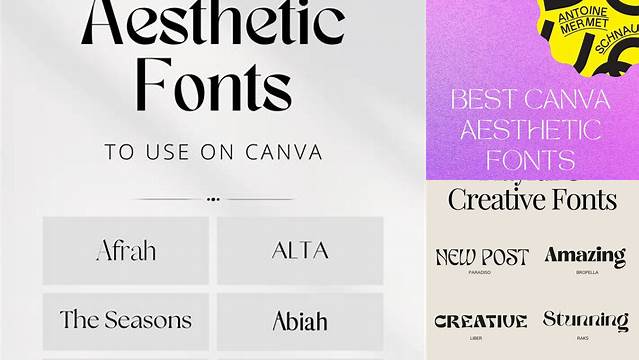
Aesthetic Fonts For Photoshop: Your Ultimate Guide
Hey guys! Ever wondered how to make your designs really pop in Photoshop? It all starts with the right fonts. Aesthetic fonts can transform your work from plain to stunning, and in this guide, we’re diving deep into everything you need to know about using them in Photoshop. Whether you're a seasoned pro or just starting, you'll find some seriously cool tips and tricks here. Let's get started!
1. What Makes a Font 'Aesthetic' in Photoshop?
Okay, first things first, what even is an aesthetic font? It’s not just about looking pretty; it's about conveying a mood, a feeling, or a specific style. In Photoshop, an aesthetic font is one that complements your overall design, adds visual interest, and enhances the message you’re trying to send. Think about it – a sleek, modern sans-serif can give a totally different vibe than a whimsical, hand-lettered script. The term aesthetic font encompasses a vast range of styles, each with its unique charm and purpose. From elegant serifs that evoke a sense of timeless sophistication to quirky display fonts that scream personality, the possibilities are endless. The key is to choose a font that not only looks good but also aligns with the overall aesthetic of your project. Consider the target audience, the message you want to convey, and the emotional impact you want to create. Experiment with different font combinations, sizes, and weights to see what works best. Don't be afraid to break the rules and try something unconventional! After all, creativity thrives on experimentation. Using aesthetic fonts effectively in Photoshop is an art form in itself. It requires a keen eye for detail, a deep understanding of typography principles, and a willingness to push boundaries. But with the right guidance and a little practice, you can master the art of typography and elevate your designs to new heights. So, let's embark on this exciting journey together and unlock the full potential of aesthetic fonts in your Photoshop creations!
2. Popular Types of Aesthetic Fonts for Photoshop
So, what kinds of aesthetic fonts are out there? Glad you asked! There’s a whole universe of options, each with its own unique flavor. We’re talking about everything from elegant serifs and sleek sans-serifs to playful scripts and bold display fonts. Understanding these categories is crucial for picking the perfect aesthetic font for your project in Photoshop. Serifs, with their classic little “feet,” often bring a touch of sophistication and formality. Think Times New Roman or Garamond – perfect for projects that need a timeless, professional vibe. Sans-serifs, on the other hand, are the sleek and modern cousins. Fonts like Helvetica and Arial offer clean lines and a contemporary feel, ideal for minimalist designs or projects targeting a younger audience. Script fonts are where things get fun and fancy! These fonts mimic handwriting and can add a personal, artistic touch to your work. Just be careful not to overdo it; readability is key! Then there are display fonts – the bold, attention-grabbing options designed for headlines and titles. These can range from chunky, industrial styles to whimsical, hand-drawn designs. Think about the overall aesthetic you’re going for. Are you creating a sleek, modern website? A vintage-inspired poster? A fun, playful invitation? The aesthetic font you choose should reflect that vibe. Don't be afraid to mix and match different font styles, but do it strategically. A good rule of thumb is to pair a more decorative font with a simpler one to ensure balance and readability. Using a bold display font for your headline and a clean sans-serif for your body text can create a visually appealing contrast. Remember, the goal is to create a cohesive and harmonious design. Experiment with different aesthetic font pairings until you find the perfect combination for your project. And most importantly, have fun with it! Typography is a powerful tool for expressing your creativity and personality. So, go ahead and explore the vast world of aesthetic fonts and discover the perfect voices for your designs.
5. Pairing Aesthetic Fonts in Photoshop
Font pairing, guys, is key to a killer design. It’s like finding the perfect harmony in music – you want fonts that complement each other, not clash. When you're working with aesthetic fonts in Photoshop, knowing how to pair them effectively can take your designs from good to amazing. A common approach is to pair a decorative or display font with a simpler, more readable font. Think of it as the headline vs. the body text. Your headline font can be bold and attention-grabbing, while your body text font should be clean and easy on the eyes. This creates a visual hierarchy and helps guide the viewer's eye through your design. For example, you might pair a bold, handwritten script font with a clean sans-serif like Montserrat or Open Sans. Or, you could use a classic serif like Garamond for your body text and a modern sans-serif like Lato for your headings. The contrast between the two styles can create a sophisticated and balanced look. Another trick is to use different weights and styles within the same font family. Many font families come with a variety of weights, from thin to bold, as well as italic variations. Using these variations can add visual interest without introducing a completely different font style. For instance, you could use a bold weight for your headings and a regular weight for your body text, all within the same font family. This creates a cohesive and professional look. When choosing aesthetic font pairings, consider the overall tone and style of your design. Are you going for a modern, minimalist look? Or a vintage, retro vibe? The fonts you choose should reflect that style. If you're designing for a specific brand, consider their brand guidelines and font preferences. Using fonts that align with the brand's identity can help maintain consistency and strengthen brand recognition. Don't be afraid to experiment and try out different pairings. There are no hard and fast rules when it comes to font pairing, so have fun and see what works best for your project. You can also use online tools and resources to help you find font pairings. Websites like FontPair and Typewolf offer curated font combinations that you can use as inspiration. Ultimately, the best way to master aesthetic font pairing is to practice and develop your eye for typography. Pay attention to the fonts you see in magazines, websites, and other designs, and try to analyze why they work well together. With time and experience, you'll develop a knack for creating beautiful and effective font pairings.
6. Best Aesthetic Font Styles for Different Projects
So, let’s get specific, guys. What aesthetic font styles work best for different kinds of projects? Choosing the right font isn't just about personal preference; it's about matching the font to the message and the medium. Let’s break it down. For websites and digital interfaces, readability is king. You want fonts that are clean, clear, and easy to read on screens. Sans-serif fonts like Open Sans, Roboto, and Montserrat are popular choices for body text because they offer excellent legibility even at smaller sizes. For headings and titles, you can get a little more creative, but still keep readability in mind. A slightly bolder sans-serif or even a subtle serif can work well. Think about the overall tone of your website. If it's a professional business site, you might want to stick with more classic and conservative fonts. If it's a creative portfolio or blog, you can afford to be a bit more playful with your font choices. For print materials like brochures, posters, and flyers, you have a bit more flexibility. Serifs can work beautifully in print, as they often have a more elegant and polished look. Fonts like Garamond, Times New Roman, and Playfair Display are classic choices for print projects. If you're designing a poster or flyer, you can use a bolder display font for your headlines to grab attention. But make sure your body text is still readable and not overshadowed by the headline font. For social media graphics, your fonts need to be eye-catching and legible, especially on smaller screens. Bold sans-serifs and scripts can work well for social media posts, but always prioritize readability. Consider using contrasting colors to make your text stand out against your background image. If you're creating a quote graphic, a handwritten or script font can add a personal touch. But avoid using overly decorative fonts that are difficult to read. When choosing aesthetic fonts for branding projects, consistency is crucial. Your logo, website, and marketing materials should all use the same fonts to create a cohesive brand identity. Think about the personality of your brand and choose fonts that reflect that. A luxury brand might use elegant serifs, while a tech startup might opt for a modern sans-serif. Remember, the best aesthetic font for a project is the one that effectively communicates your message and enhances your overall design. Consider your audience, the medium, and the tone you want to convey, and choose fonts that align with those factors. With a little practice, you'll develop a knack for selecting the perfect fonts for any project.
7. Modern Aesthetic Font Trends in Photoshop
Okay, let’s keep it fresh, guys! What are the hottest aesthetic font trends in Photoshop right now? Typography trends are always evolving, and staying on top of the latest styles can give your designs a modern and relevant edge. One major trend is the use of bold, geometric sans-serifs. These fonts have a clean, minimalist look that's perfect for modern websites, branding, and social media graphics. Think fonts like Montserrat, Bebas Neue, and Futura. They're strong, impactful, and easy to read. Another trend is the resurgence of vintage and retro fonts. Designers are embracing fonts with a nostalgic feel, drawing inspiration from the mid-century modern era and beyond. Think fonts with rounded serifs, script styles, and quirky letterforms. These fonts can add character and personality to your designs. Hand-drawn and script fonts are still going strong, but they're evolving. We're seeing more refined and elegant script styles, as well as hand-drawn fonts with a more polished and professional look. These fonts are great for adding a personal touch to your designs, but they should be used sparingly to maintain readability. Variable fonts are also gaining popularity. These fonts allow you to customize various aspects of the font, such as weight, width, and slant, giving you more control over your typography. This can be especially useful for creating unique and dynamic designs. Another trend is the use of contrasting font styles. Designers are pairing bold, attention-grabbing fonts with simpler, more understated fonts to create visual interest and hierarchy. This can be a great way to make your designs stand out. When incorporating these aesthetic font trends into your designs, it's important to consider your audience and the overall message you want to convey. Just because a font is trendy doesn't mean it's the right choice for every project. Choose fonts that align with your brand identity and the tone of your design. Don't be afraid to experiment with different styles and combinations, but always prioritize readability and clarity. The goal is to use typography to enhance your design, not distract from it. Staying informed about the latest font trends can help you create designs that are fresh, modern, and visually appealing. So, keep an eye on what's popular, but always trust your own creative instincts and choose fonts that feel right for your project.
8. Using Aesthetic Fonts for Logos in Photoshop
Let's talk logos, guys! A logo is the face of your brand, and the aesthetic font you choose plays a huge role in how your brand is perceived. Your logo font needs to be memorable, legible, and reflective of your brand's personality. When choosing aesthetic fonts for logos in Photoshop, the first thing to consider is your brand's identity. What are your brand values? What is your target audience? What kind of message do you want to convey? A luxury brand might opt for an elegant serif font like Trajan Pro or Garamond, while a tech startup might choose a modern sans-serif like Helvetica or Montserrat. A playful brand might use a handwritten or script font, while a more traditional brand might stick with a classic serif. Legibility is crucial for logo fonts. Your logo needs to be readable at various sizes, from business cards to billboards. Avoid overly decorative fonts that are difficult to read, especially at smaller sizes. Sans-serif fonts are generally more legible at small sizes than serif fonts, but there are exceptions. If you're using a serif font, make sure it's clean and well-designed. Versatility is another important factor. Your logo font should work well in a variety of contexts, from your website to your social media profiles to your printed materials. Choose a font that is versatile enough to adapt to different applications. Consider using a font family that includes different weights and styles. This will give you more flexibility when designing your logo and branding materials. For example, you could use a bold weight for your logo and a regular weight for your tagline. Simplicity is key in logo design. A simple, clean logo is often more memorable and effective than a complex one. Avoid using too many fonts or decorative elements in your logo. Stick to one or two fonts at most, and make sure they complement each other. Your logo font should be unique and distinctive. Avoid using generic fonts that are overused. Look for fonts that have a unique character and personality. You can also customize your font to make it even more unique. When designing your logo in Photoshop, experiment with different font styles, sizes, and colors. Try different font pairings and see what works best for your brand. Get feedback from others and refine your logo until it perfectly represents your brand. Remember, your logo is one of the most important elements of your brand identity, so choose your font wisely. A well-designed logo with the right aesthetic font can help you build brand recognition and connect with your target audience.
9. Aesthetic Font Sizes and Spacing in Photoshop
Font size and spacing, guys, are the unsung heroes of typography. They can make or break the readability and overall aesthetic of your design. When working with aesthetic fonts in Photoshop, paying attention to these details is crucial. Let's start with font size. The ideal font size depends on a number of factors, including the font style, the medium (print vs. web), and the viewing distance. For body text, a general rule of thumb is to use a font size between 14 and 18 points for print and 16 to 20 pixels for web. For headings, you can use larger font sizes to create a visual hierarchy. The size difference between your headings and body text should be noticeable, but not jarring. Experiment with different font sizes and see what looks best for your design. Consider the overall layout and the amount of text you have. If you have a lot of text, you might want to use a slightly smaller font size to fit everything in. If you have a limited amount of text, you can use a larger font size to make it more impactful. Line height, also known as leading, is the vertical space between lines of text. The ideal line height depends on the font size and the length of your lines. A general guideline is to set your line height to 1.5 times your font size. For example, if you're using a 12-point font, your line height should be around 18 points. Adjust the line height as needed to improve readability. If your lines are too close together, the text will look cramped and difficult to read. If your lines are too far apart, the text will look disconnected. Letter spacing, also known as tracking, is the horizontal space between letters. Adjusting the letter spacing can improve the overall appearance of your text. In some cases, you may want to slightly increase the letter spacing to give your text more breathing room. In other cases, you may want to slightly decrease the letter spacing to make your text more compact. Word spacing is the horizontal space between words. Adjusting the word spacing can also improve the readability of your text. Too much word spacing can make your text look disjointed, while too little word spacing can make it difficult to distinguish between words. Kerning is the adjustment of the space between individual letters. Some letter combinations can look awkward if the default spacing is used. Kerning allows you to fine-tune the spacing between letters to create a more balanced and harmonious look. When working with aesthetic fonts in Photoshop, take the time to experiment with font sizes, spacing, and kerning. These details can make a big difference in the overall quality and readability of your design. Pay attention to how your text looks and feels, and adjust the settings as needed to achieve the desired effect.
10. Aesthetic Font Color and Effects in Photoshop
Color and effects, guys, are the secret sauce that can take your aesthetic font game to the next level in Photoshop! It’s not just about picking a pretty font; it’s about making that font shine. Let’s dive into how you can use color and effects to create truly stunning typography. First up, color. The color of your font can have a huge impact on the overall look and feel of your design. Consider the mood you want to create and choose colors that align with that mood. For example, warm colors like red and orange can evoke feelings of energy and excitement, while cool colors like blue and green can create a sense of calm and tranquility. Think about the contrast between your font color and your background color. High contrast is essential for readability. If your background is dark, use a light font color, and vice versa. If your background is busy or textured, you may need to use a darker or bolder font color to make your text stand out. Use color to create visual hierarchy. You can use different colors for your headings and body text to guide the viewer's eye through your design. A brighter or bolder color can be used for headings to draw attention, while a more subdued color can be used for body text to ensure readability. Gradient colors can add depth and dimension to your text. A subtle gradient can create a smooth and polished look, while a more dramatic gradient can add a sense of energy and excitement. Experiment with different gradient styles and color combinations to see what works best for your design. Now, let's talk effects. Photoshop offers a wide range of effects that you can apply to your text, including drop shadows, strokes, inner shadows, and bevels. These effects can add depth, texture, and visual interest to your typography. Drop shadows can create the illusion that your text is floating above the background. Use drop shadows sparingly and subtly to avoid making your text look cluttered or artificial. Strokes can add definition and emphasis to your text. A thin stroke in a contrasting color can make your text stand out against the background. Inner shadows can create a subtle three-dimensional effect. This effect can add depth and dimension to your text without being too overpowering. Bevels can create a raised or embossed effect. This effect can add a touch of elegance and sophistication to your typography. When using effects, less is often more. Overusing effects can make your text look cluttered and unprofessional. Experiment with different effects and settings, but always prioritize readability and clarity. The goal is to enhance your aesthetic font, not distract from it. By using color and effects thoughtfully, you can create typography that is both visually stunning and highly effective.
11. Aesthetic Font Kerning and Tracking in Photoshop
Kerning and tracking, guys, are like the secret weapons of professional typography. They’re the tiny tweaks that can make a huge difference in how polished and professional your aesthetic fonts look in Photoshop. Seriously, mastering these skills is a total game-changer. Let’s break down what they are and how to use them. Kerning is the adjustment of the space between individual letters. Think of it as fine-tuning the fit between each letter pair. Some letter combinations, like “AV” or “Wo,” can look awkward if the default spacing is used. Kerning allows you to manually adjust the space between these letters to create a more balanced and harmonious look. In Photoshop, you can adjust kerning using the Character panel. Select the text layer you want to adjust, open the Character panel (Window > Character), and use the kerning setting (the “VA” icon with arrows) to increase or decrease the space between the selected letters. Tracking, on the other hand, is the uniform adjustment of the space between all letters in a word or phrase. It’s like a global spacing control. Tracking is useful for adjusting the overall density of your text. If your text looks too tight or too loose, adjusting the tracking can help improve its readability and visual appeal. You can adjust tracking in the Character panel as well, using the tracking setting (the “VA” icon with a single arrow). So, when should you use kerning and when should you use tracking? Kerning is best used for fine-tuning specific letter pairs that look awkward. It’s a manual process that requires a keen eye for detail. Tracking is best used for adjusting the overall spacing of your text. It’s a quick way to make global adjustments to the density of your text. A good rule of thumb is to kern first and track later. Start by kerning any letter pairs that need adjustment, and then use tracking to fine-tune the overall spacing of your text. When kerning, pay attention to the negative space between letters. The goal is to create an even distribution of space between all letters. Some letter combinations may require more kerning than others. When tracking, make small adjustments and check the overall appearance of your text. Too much tracking can make your text look sparse and disconnected, while too little tracking can make it look cramped and difficult to read. Mastering kerning and tracking takes practice, but it's a skill that will pay off in spades. By paying attention to these details, you can create typography that is both visually stunning and highly readable. So, take the time to learn these skills and elevate your aesthetic font game to the next level.
12. Combining Aesthetic Fonts with Images in Photoshop
Images and aesthetic fonts, guys, are like peanut butter and jelly – they just go together! But like any great pairing, it’s all about balance. You want your fonts and images to complement each other, not compete. Let’s talk about how to make this magic happen in Photoshop. First, consider the mood and style of your image. Is it a bright and cheerful photo? A moody and atmospheric one? The font you choose should reflect that same vibe. A playful image might pair well with a handwritten or script font, while a more sophisticated image might call for a classic serif or a clean sans-serif. Think about the image’s focal point. You don’t want your text to distract from the main subject of the image. Place your text strategically so that it enhances the image, not overshadows it. Use negative space to your advantage. Placing your text in an area of the image that is relatively empty can help it stand out and improve readability. Consider the color palette of your image. Choose font colors that complement the colors in the image. You can use the Eyedropper tool in Photoshop to sample colors from the image and use them for your text. This can create a cohesive and harmonious look. Use blending modes to integrate your text with the image. Blending modes like Multiply, Overlay, and Screen can create interesting effects and help your text blend seamlessly with the image. Experiment with different blending modes to see what works best for your design. Use layer masks to selectively reveal or hide parts of your text. This can be useful for creating effects like text that appears to be behind an object in the image. Crop your image to create a stronger composition. Cropping can help you emphasize the focal point of your image and create a more visually appealing layout for your text. Use hierarchy to guide the viewer’s eye. Use different font sizes and styles to create a visual hierarchy and draw attention to the most important elements of your design. Don’t be afraid to experiment and break the rules. There are no hard and fast rules when it comes to combining fonts and images. The most important thing is to create a design that is visually appealing and effectively communicates your message. When working with aesthetic fonts and images in Photoshop, pay attention to the details and take the time to experiment with different techniques. With a little practice, you can create stunning designs that seamlessly blend typography and imagery.
13. Creating Text Effects with Aesthetic Fonts in Photoshop
Text effects, guys, are the ultimate way to spice up your aesthetic fonts in Photoshop! They can add depth, dimension, and a whole lot of personality to your typography. Let’s explore some cool text effects you can create and how to use them effectively. One of the most popular text effects is the drop shadow. A drop shadow can create the illusion that your text is floating above the background, adding depth and dimension to your design. In Photoshop, you can add a drop shadow by going to Layer > Layer Style > Drop Shadow. Experiment with different settings like the shadow’s distance, spread, and size to achieve the desired effect. Another classic text effect is the stroke. A stroke adds an outline around your text, making it stand out from the background. You can add a stroke in Photoshop by going to Layer > Layer Style > Stroke. Choose a stroke color that contrasts with your text and background colors for maximum impact. Inner shadows can create a subtle three-dimensional effect, making your text look like it’s recessed into the background. You can add an inner shadow by going to Layer > Layer Style > Inner Shadow. Bevel and emboss effects can create a raised or engraved look, adding a touch of elegance and sophistication to your typography. You can add a bevel and emboss effect by going to Layer > Layer Style > Bevel & Emboss. Gradient overlays can add depth and dimension to your text by filling it with a gradient color. You can add a gradient overlay by going to Layer > Layer Style > Gradient Overlay. Experiment with different gradient styles and color combinations to create unique effects. Pattern overlays can add texture and visual interest to your text by filling it with a pattern. You can add a pattern overlay by going to Layer > Layer Style > Pattern Overlay. Photoshop comes with a variety of patterns, or you can create your own. Outer glows can add a soft, luminous effect around your text, making it stand out from the background. You can add an outer glow by going to Layer > Layer Style > Outer Glow. When creating text effects, it’s important to use them sparingly and strategically. Overusing effects can make your text look cluttered and unprofessional. Choose effects that enhance your aesthetic font and support your overall design concept. Experiment with different effects and settings, but always prioritize readability and clarity. The goal is to create typography that is both visually appealing and easy to read. Text effects can be a powerful tool for adding visual interest and personality to your designs. By mastering these techniques, you can create stunning typography that truly stands out.
14. Aesthetic Fonts for Social Media Graphics in Photoshop
Social media graphics, guys, are all about grabbing attention in a super crowded space. That means your aesthetic fonts need to be on point! Choosing the right font can make or break your social media posts, so let’s talk about how to make them shine in Photoshop. First, consider the platform you’re designing for. What works on Instagram might not work on Twitter or Facebook. Different platforms have different visual styles and audiences, so tailor your font choices accordingly. For Instagram, bold and eye-catching fonts are a great choice. Instagram is a visually driven platform, so you want fonts that will stand out in the feed. Think about using display fonts, handwritten fonts, or bold sans-serifs for your headlines. For body text, stick with something clean and readable, like a simple sans-serif. For Twitter, readability is key. Twitter is a text-heavy platform, so you want fonts that are easy to read at small sizes. Sans-serif fonts like Arial, Helvetica, and Roboto are good choices for Twitter posts. For Facebook, you have a bit more flexibility. Facebook allows for longer text posts and larger images, so you can experiment with different font styles. Consider using a combination of a display font for your headline and a serif or sans-serif font for your body text. Think about your brand’s personality. Your font choices should reflect your brand’s identity and values. If you have brand guidelines, stick to those. If not, think about the overall tone and style of your brand and choose fonts that align with that. Use hierarchy to guide the viewer’s eye. Use different font sizes and styles to create a visual hierarchy and draw attention to the most important elements of your design. Your headline should be the largest and boldest element, followed by your body text and call to action. Consider using contrasting colors to make your text stand out. Choose font colors that contrast with your background colors for maximum impact. Use a color palette that aligns with your brand’s identity. Keep your text concise and easy to read. Social media users are often scrolling quickly, so you want to get your message across as efficiently as possible. Use short, punchy headlines and keep your body text brief and to the point. Test your designs on different devices. Social media graphics are viewed on a variety of devices, from smartphones to desktop computers. Make sure your fonts look good on all devices. When choosing aesthetic fonts for social media graphics in Photoshop, keep your audience, platform, and brand in mind. By making smart font choices, you can create social media posts that are visually appealing, engaging, and effective.
15. Aesthetic Fonts for Print Design in Photoshop
Print design, guys, has its own set of rules when it comes to aesthetic fonts. What looks amazing on a screen might not translate well to paper, so let’s talk about how to choose the perfect fonts for your print projects in Photoshop. First, consider the type of print project you’re designing. A business card will require different fonts than a poster or a brochure. Think about the overall purpose of the project and choose fonts that align with that. For business cards, legibility is paramount. Your business card needs to be easy to read at a small size, so stick with clean and simple fonts. Sans-serif fonts like Helvetica, Arial, and Open Sans are good choices for business cards. Avoid using overly decorative fonts or small font sizes. For posters, you have more room to be creative. Posters are designed to grab attention, so you can use bolder and more eye-catching fonts. Display fonts, handwritten fonts, and script fonts can work well for posters. Just make sure your text is still legible from a distance. For brochures, you need a balance of readability and visual appeal. Brochures often contain a lot of text, so you need fonts that are easy to read in long blocks. Serif fonts like Garamond, Times New Roman, and Palatino are good choices for brochure body text. You can use a bolder font for your headlines to create a visual hierarchy. Think about your target audience. Who are you trying to reach with your print project? Choose fonts that appeal to your target audience. A formal audience might appreciate classic serif fonts, while a younger audience might prefer modern sans-serif fonts. Consider the overall tone and style of your design. Your font choices should reflect the overall aesthetic of your project. If you’re designing a vintage-inspired poster, choose fonts that have a retro feel. If you’re designing a modern brochure, stick with clean and contemporary fonts. Pay attention to kerning and tracking. Kerning and tracking are essential for achieving professional-looking typography in print design. Fine-tune the spacing between your letters to ensure optimal readability and visual appeal. Test your designs before printing. Print a proof of your design before you send it to the printer. This will allow you to check for any errors and make sure your fonts look good in print. When choosing aesthetic fonts for print design in Photoshop, prioritize legibility, consider your target audience, and pay attention to the details. By making smart font choices, you can create print projects that are both visually stunning and highly effective.